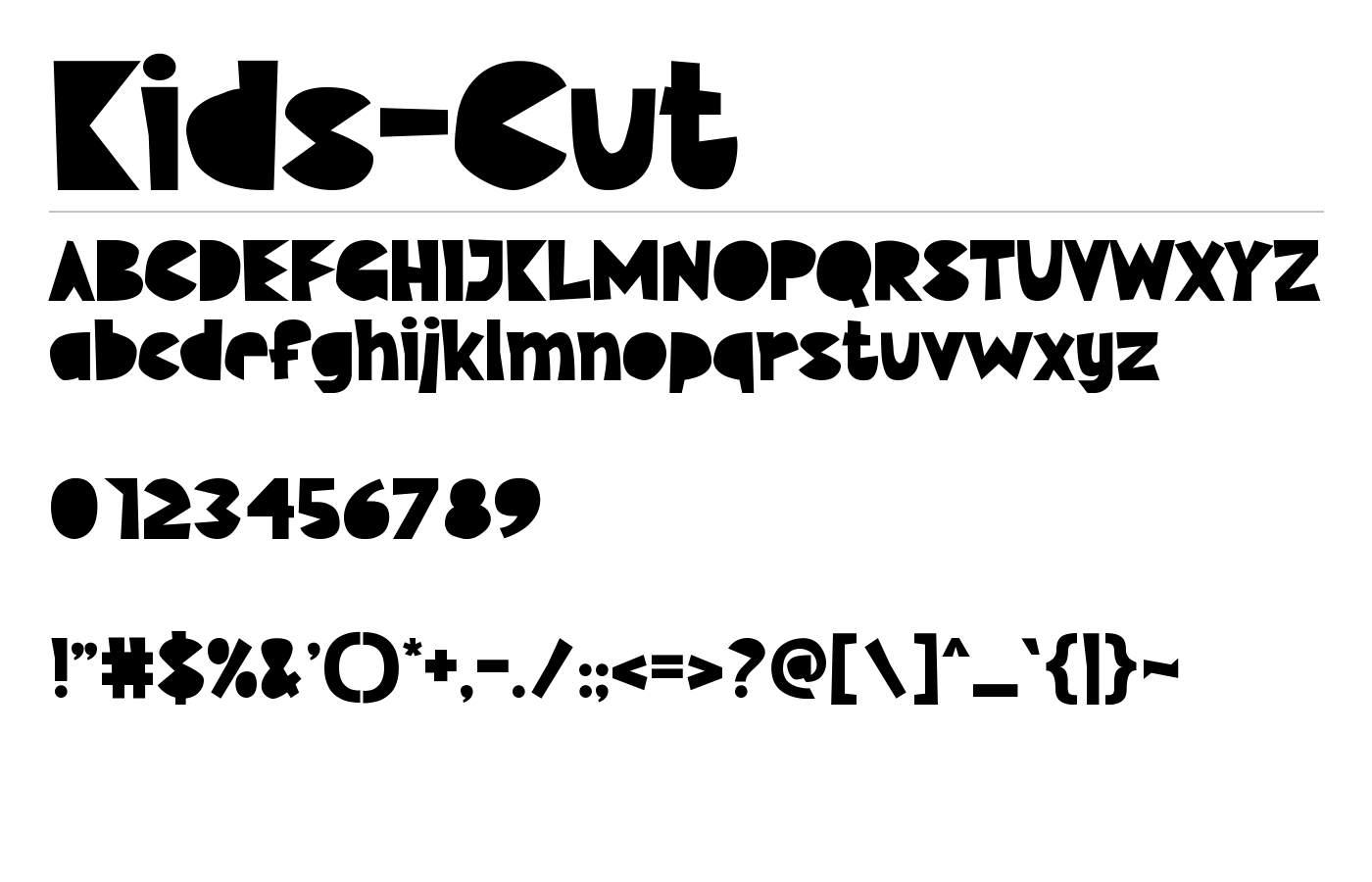
Kids Cut is a bold, playful display font with chunky, irregular shapes that evoke a fun, childlike energy. Its strong, geometric letterforms and quirky cuts make it perfect for children’s books, posters, and creative branding that aims to capture a lively, whimsical feel. This font works best in headlines and logos where a distinctive, informal style is needed to attract attention and convey youthful charm.
Kids Cut Font